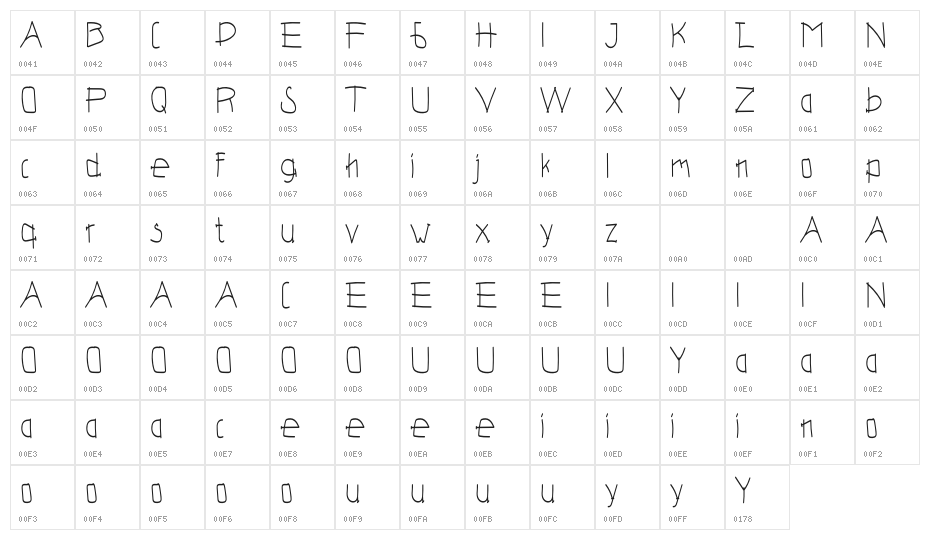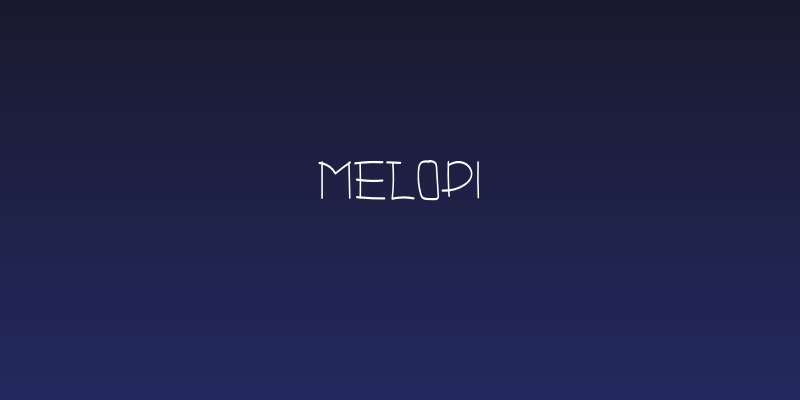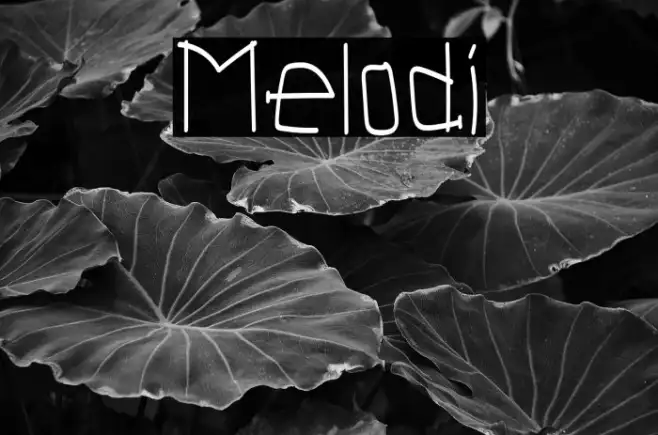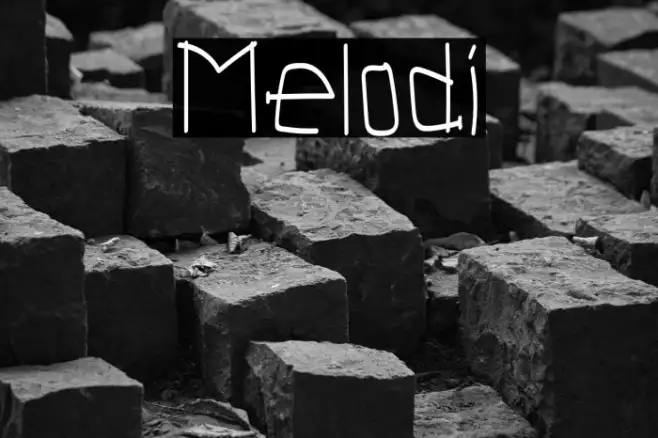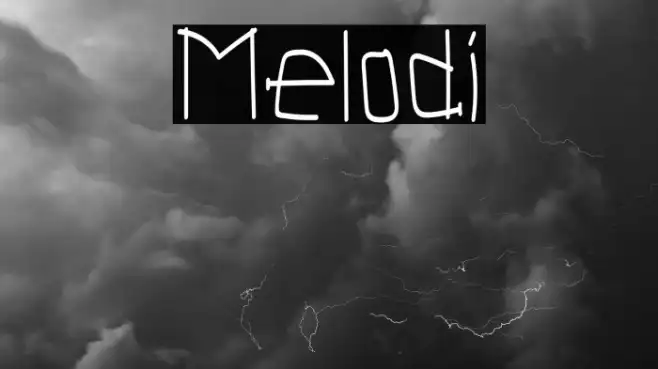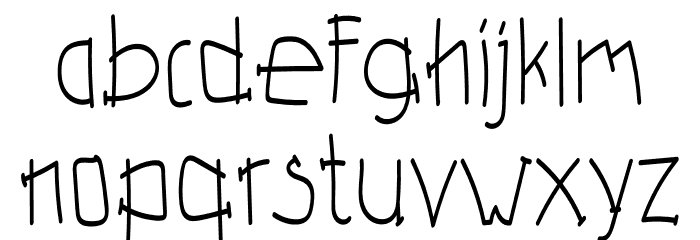
Melodi Font
Melodi Description
This font features a playful and whimsical design, characterized by its irregular and hand-drawn appearance. The letters are tall and narrow, with uneven strokes that give it a casual and informal feel. The uppercase and lowercase letters maintain a consistent style, with some characters exhibiting unique quirks, such as the slanted crossbar on the 'e' and the looped descender on the 'g'. The overall look is reminiscent of a child's handwriting or a doodle, making it ideal for projects that require a touch of creativity and fun. The font lacks traditional serifs, adding to its modern and approachable aesthetic.
| Use Case | Headlines, Informal Text, Creative Projects |
| Proposed Projects | Ideal for children's books, creative posters, informal invitations, and playful branding. |